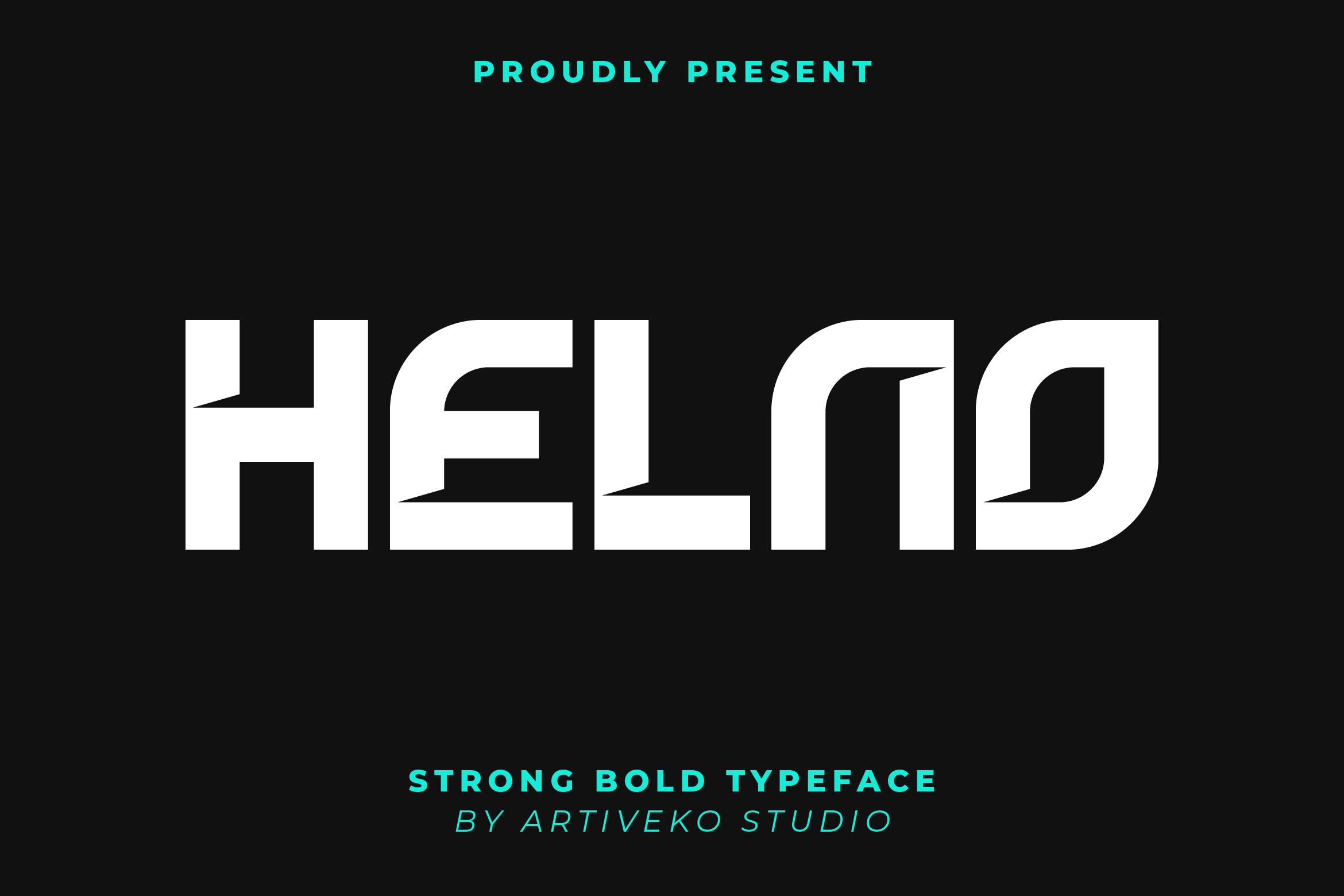
- Helno Powerful Sans Font
Helno is a powerful sans serif font crafted to deliver maximum impact. With its bold weight, clean geometry, and contemporary styling, Helno is perfect for attention-grabbing headlines, branding, posters, packaging, sports graphics, and digital campaigns that demand a confident look.
Its strong letterforms ensure high readability while adding a sense of authority and modern professionalism to your designs. Whether for logos or large-scale typographic compositions, Helno provides the perfect balance of simplicity and strength.
This font includes uppercase and lowercase letters, numerals, punctuation, multilingual support, and stylistic alternates for enhanced flexibility.
Make your typography stand out with Helno — the bold sans serif font that defines power, clarity, and modern sophistication.